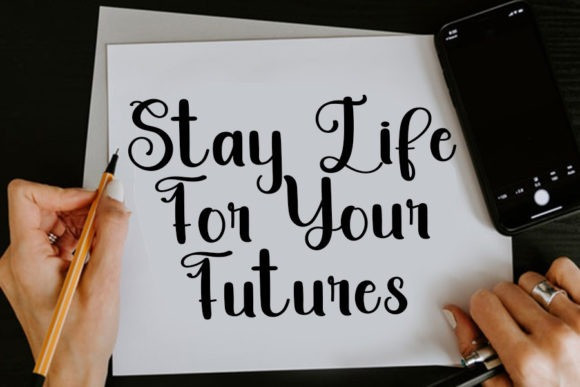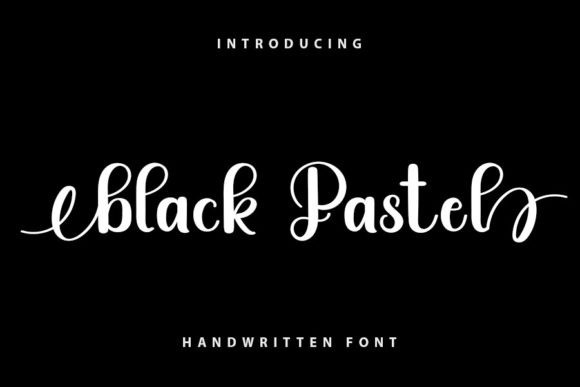
Black Pastel Typeface
Black Pastel Font is a stylish and delicate script font. It has beautiful and well balanced characters and as a result, it matches a wide pool of designs. Add it to your most creative ideas and notice how it makes them come alive!